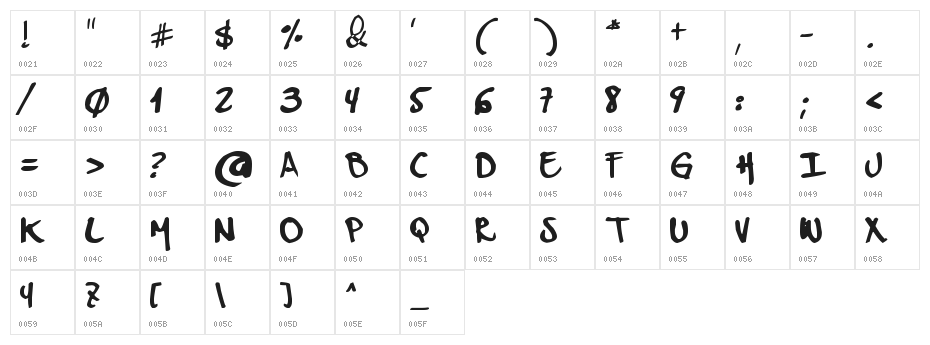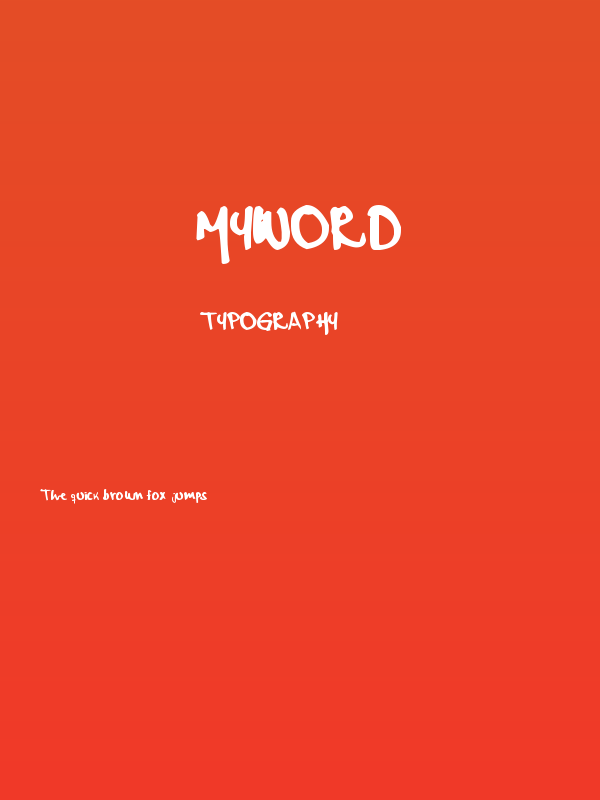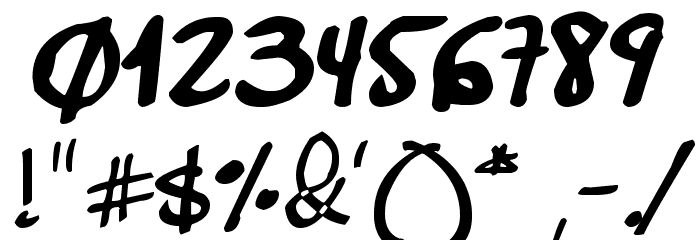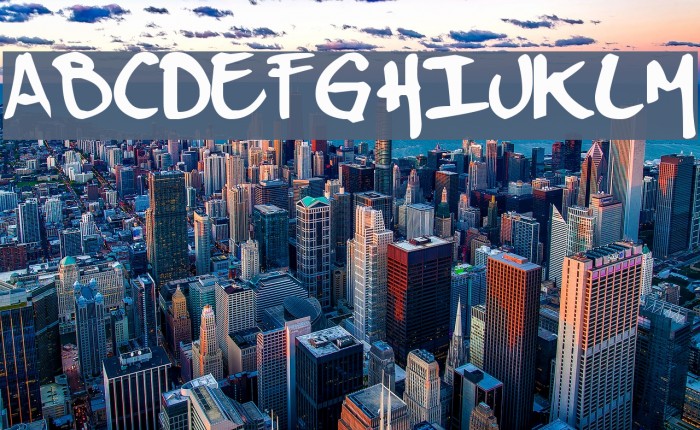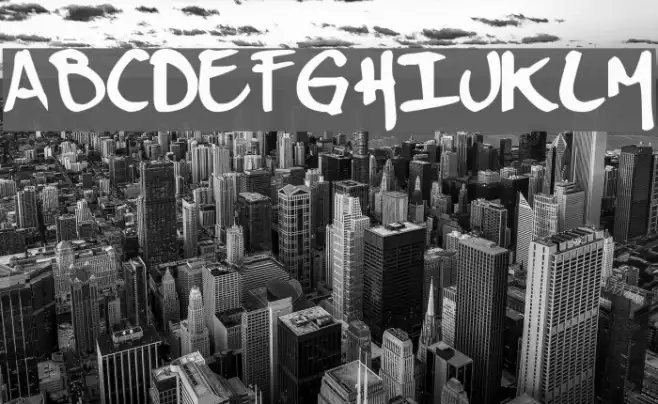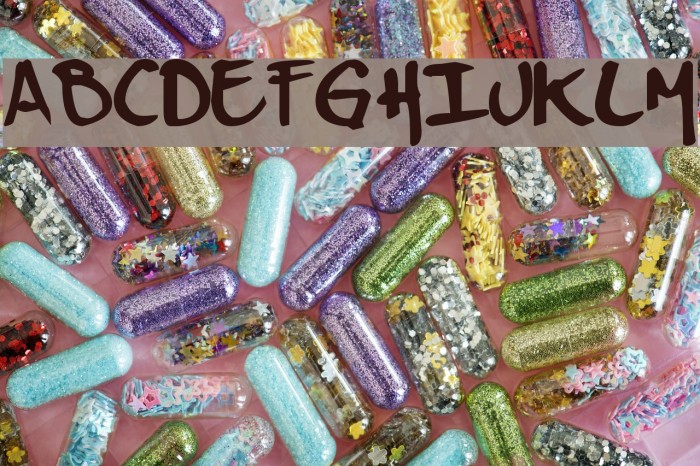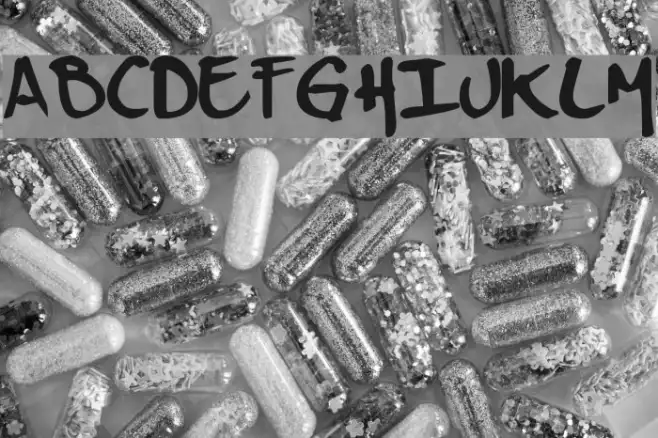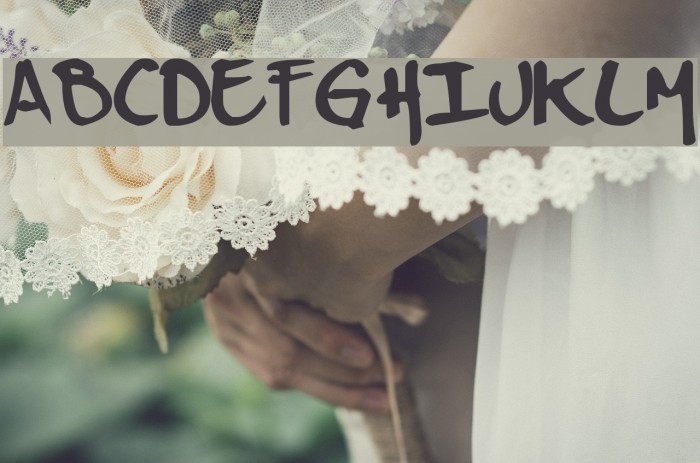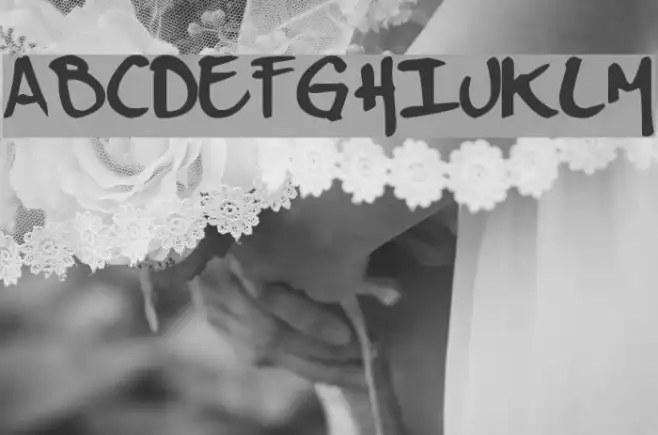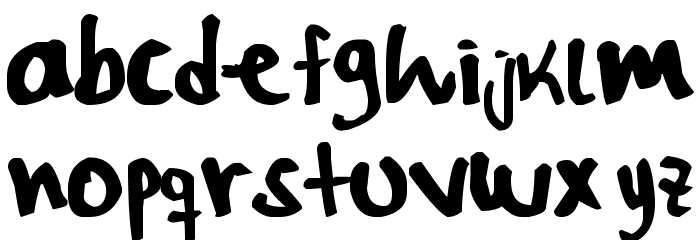
MyWord Font
MyWord Description
This font features a bold and expressive handwritten style, characterized by its dynamic and energetic strokes. The letters have a playful and informal appearance, with varying thickness that adds a sense of movement and personality. The uppercase and lowercase letters are well-balanced, maintaining a consistent flow throughout the alphabet. Numbers and special characters are equally bold, ensuring readability and coherence. The overall design is casual yet impactful, making it suitable for projects that require a personal touch or a creative flair.
| Proposed Projects | Ideal for greeting cards, posters, branding projects, and social media graphics where a personal and creative touch is desired. |